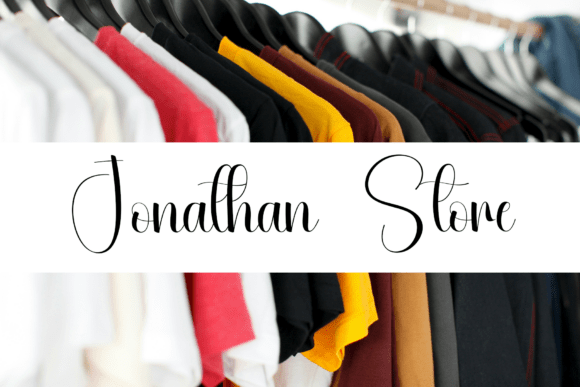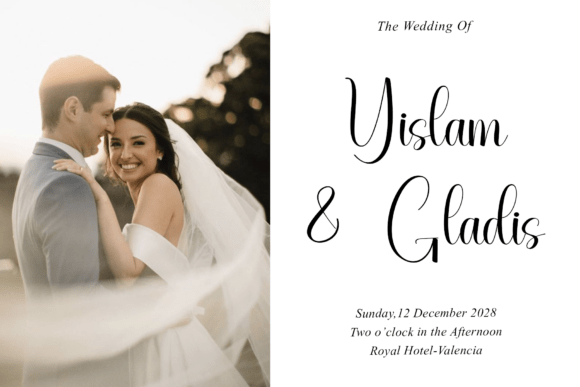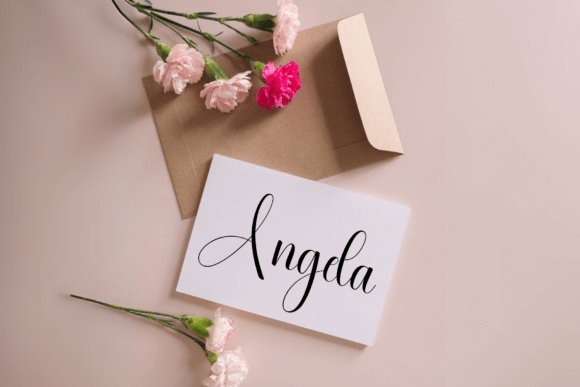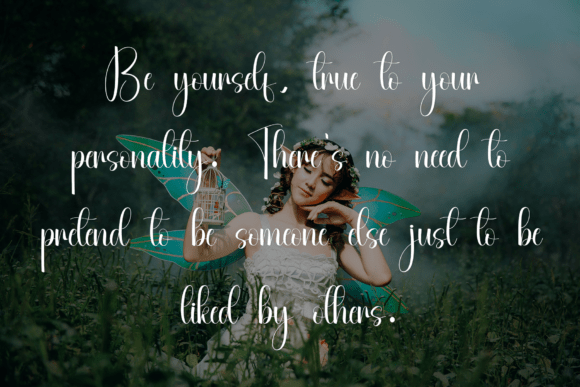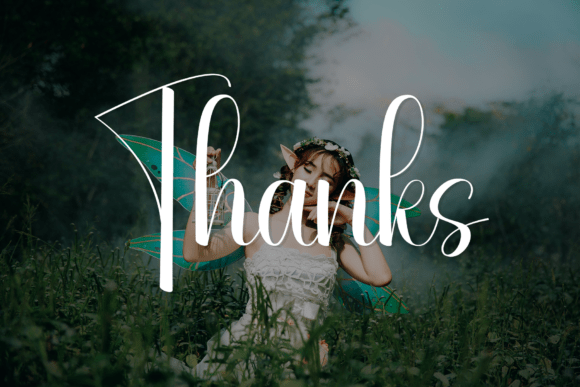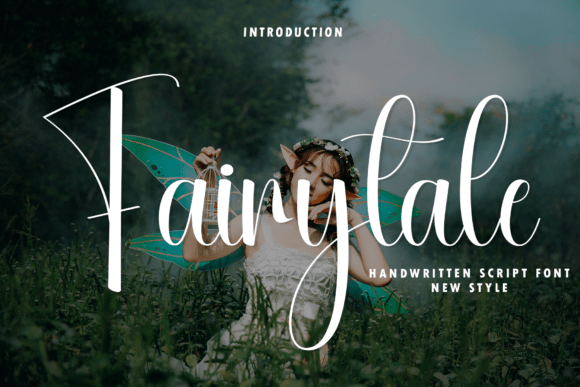
Introducing Fairytale Font: The Epitome of Elegance and Sophistication
In the realm of typography, few fonts have managed to capture the essence of luxury and sophistication as effortlessly as Fairytale. This elegant and fluid handwritten script font has been turning heads in the design community, and for good reason. With its modern and refined aesthetic, Fairytale is the perfect choice for designers and crafters looking to add a touch of high-end style to their projects.
The Perfect Choice for Luxury Wedding Stationery
When it comes to wedding stationery, the font used can make all the difference in setting the tone for the special day. Fairytale font is an ideal choice for luxury wedding stationery, as it exudes romance, elegance, and sophistication. Its fluid strokes and delicate lettering evoke a sense of whimsy and wonder, making it perfect for wedding invitations, save-the-date cards, and other stationery essentials. Whether you’re a designer looking to create custom wedding stationery or a crafty bride-to-be looking for a unique and stylish font, Fairytale is sure to impress.
Elevate Your Event Branding with Fairytale
Fairytale font is not just limited to wedding stationery; it’s also an excellent choice for intimate event branding. Whether you’re planning a baby shower, bridal shower, or corporate event, Fairytale can help you create a cohesive and stylish brand identity. Its elegant and refined aesthetic makes it perfect for event invitations, signage, and other promotional materials. With Fairytale, you can create a lasting impression on your guests and set the tone for a memorable and sophisticated event.
High-End Editorial Signatures and Lifestyle Photography Overlays
Fairytale font is not just limited to event branding and stationery; it’s also an excellent choice for high-end editorial signatures and lifestyle photography overlays. Its modern and sophisticated aesthetic makes it perfect for adding a touch of elegance to editorial content, such as fashion magazines, blogs, and social media posts. Additionally, Fairytale can be used to create stunning lifestyle photography overlays, adding a touch of whimsy and romance to your photos.
Why Designers and Crafters Love Fairytale Font
So, why have designers and crafters fallen in love with Fairytale font? Here are just a few reasons:
• Elegant and sophisticated aesthetic: Fairytale font has a unique and refined aesthetic that adds a touch of luxury to any project.
• Versatile: Fairytale font can be used for a wide range of projects, from wedding stationery to event branding and editorial content.
• Easy to read: Despite its elegant and fluid strokes, Fairytale font is surprisingly easy to read, making it perfect for body text and headlines.
• Unique and distinctive: Fairytale font has a unique and distinctive style that sets it apart from other fonts on the market.
Tips for Using Fairytale Font in Your Designs
Here are a few tips for using Fairytale font in your designs:
• Pair it with a neutral font: Fairytale font is elegant and sophisticated on its own, but it can be paired with a neutral font to create a stunning contrast.
• Use it for headlines and titles: Fairytale font is perfect for headlines and titles, where its elegant and fluid strokes can really shine.
• Experiment with different colors: Fairytale font looks stunning in a range of colors, from classic black and white to bold and bright hues.
• Don’t be afraid to get creative: Fairytale font is a versatile font that can be used in a wide range of projects, so don’t be afraid to get creative and try new things.
Font Name Fairytale Font
In conclusion, Fairytale font is a truly exceptional font that has captured the hearts of designers and crafters around the world. Its elegant and sophisticated aesthetic makes it perfect for luxury wedding stationery, intimate event branding, high-end editorial signatures, and sophisticated lifestyle photography overlays. With its versatility, ease of use, and unique style, Fairytale font is sure to become a staple in any designer’s toolkit.